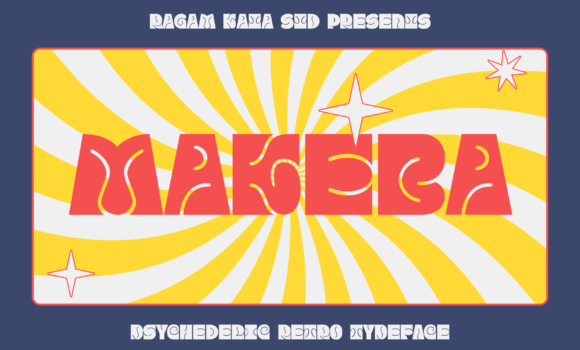
makeba
Makeba Font - Featured Image
Makeba Font – Free Download Introduction to Makeba Font This is a writing style that might suit what you need, strong and bold, psychedelic style. 📸 Preview Gallery 6 images 📌 Product Name Makeba Font 👤 Author RagamKata Studio 📂